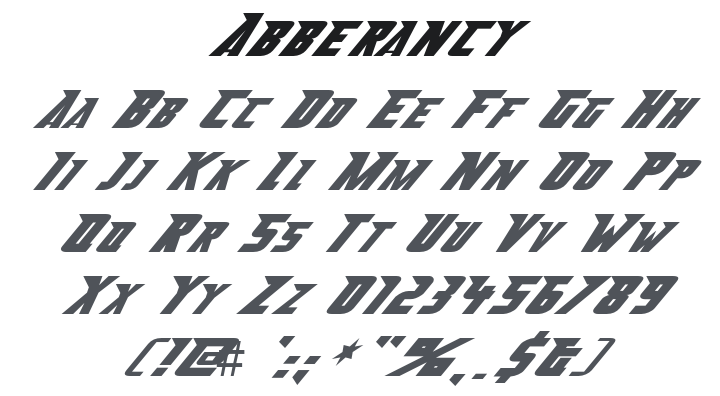
Abberancy Font
About Abberancy
Abberancy is a bold, slanted display with square letterforms and sharp angles that radiate speed and motion, inspired by mid-20th century vehicle and racing graphics. Its confident italic stance gives it a dynamic, powerful look. Great for sports branding, racing posters, action game titles, automotive design, and bold headlines needing high-energy impact.